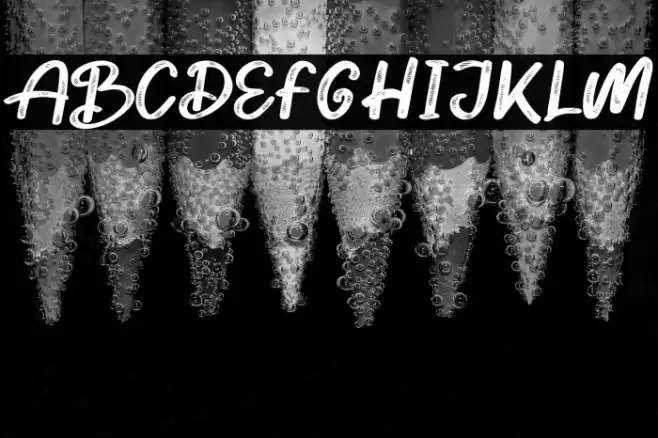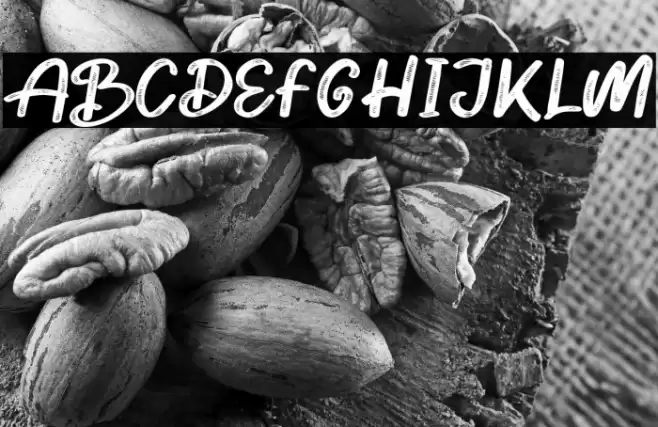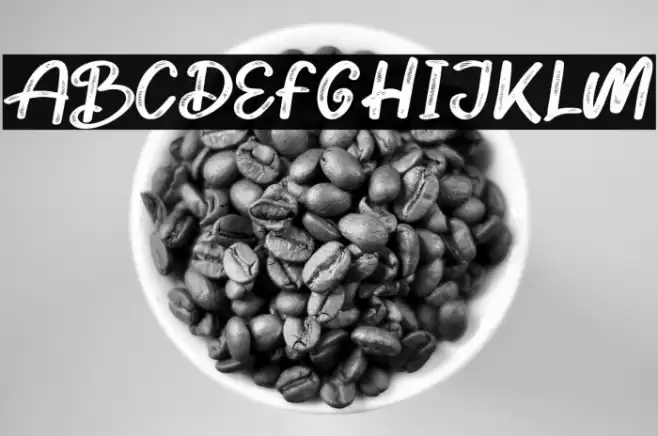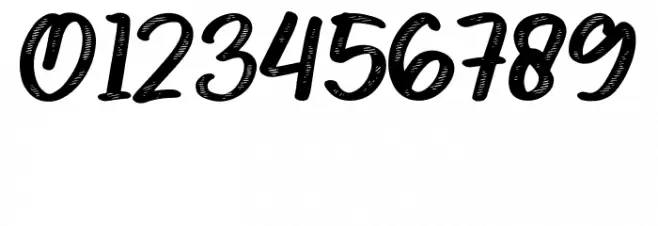
Dekker clark Regular Font
Dekker clark Regular Description
This font features a bold, handwritten style with a playful and energetic feel. The letters are slightly slanted, giving a sense of movement and dynamism. Each character is crafted with a brush-like texture, adding a personal and artistic touch. The strokes are thick and consistent, providing a strong visual impact. The font maintains a casual yet stylish appearance, making it suitable for creative and informal designs. Its unique character shapes and flowing lines make it stand out, offering a modern twist on traditional handwriting.
A bold, handwritten font with a playful and energetic style from Uncategorized fonts.
- Font: Dekker clark Regular
- Proposed Projects: Ideal for greeting cards, posters, branding projects, and social media graphics.